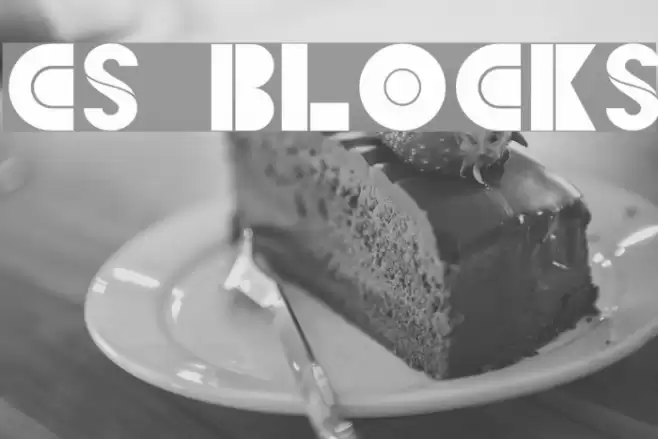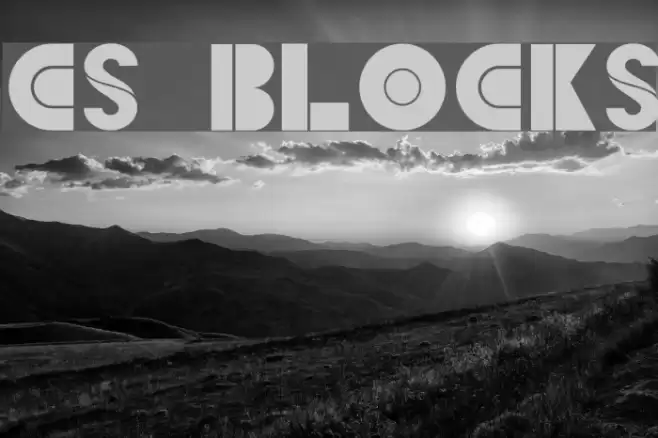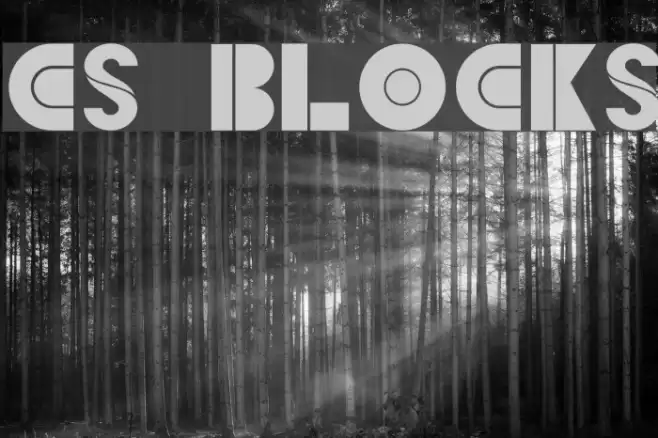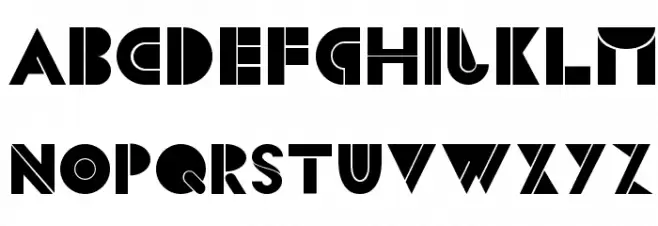
CS Blocks Font
CS Blocks Description
This font features a bold and geometric design, characterized by its block-like structure and strong visual presence. The letters are crafted with a combination of sharp angles and smooth curves, creating a dynamic and modern appearance. Each character is distinct, with a unique interplay of negative space that enhances readability while maintaining a decorative flair. The font's style is reminiscent of retro-futuristic aesthetics, making it suitable for projects that require a bold statement. Its uniform stroke width and consistent character height contribute to a cohesive and balanced look.
A bold, geometric font with a retro-futuristic style and strong visual impact from Uncategorized fonts.
- Proposed Projects: Ideal for branding, posters, headlines, and any design that requires a striking and modern look.